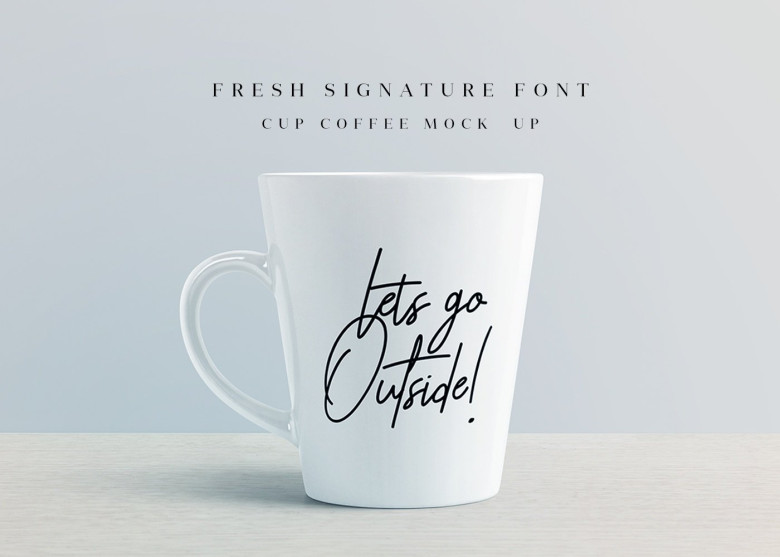
Rhesmanisa Script Font
Hello friend, It is a handmade brush font. Introducing Rhesmanisa! Rhesmanisa was designed and shares by Jamaludin Ahmad. Rhesmanisa Handwriting Script Font – a new modern & fresh script with a handwritten and script style make this font looks elegant, natural, stylish and perfect for any awesome projects that need handwriting taste.